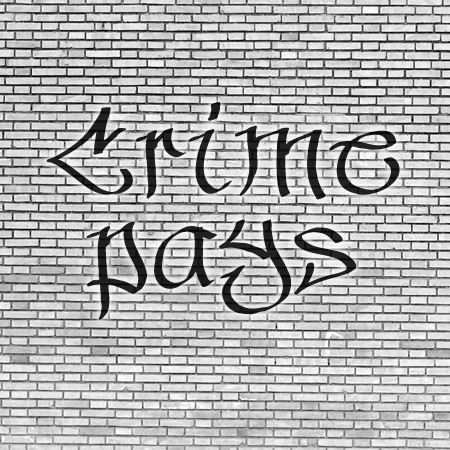
Hinterwelt by Lukas Schiltknecht is a free medieval blackletter font with a wild, hand-cut silhouette and pronounced calligraphic movement across the uneven letter heights. Its narrow strokes snap into long wedges and hooked points.
Medieval fantasy is its clearest setting, especially for role-playing game titles and dark folklore book covers, where the restless forms resemble marks from an old illuminated page rather than polished revival lettering. It also suits album artwork, theatrical posters, and themed event graphics aimed at audiences drawn to occult stories, historical drama, and rough-edged underground culture, since its irregular strokes become part of the setting rather than neutral typography.
Hinterwelt
Lukas Schiltknecht